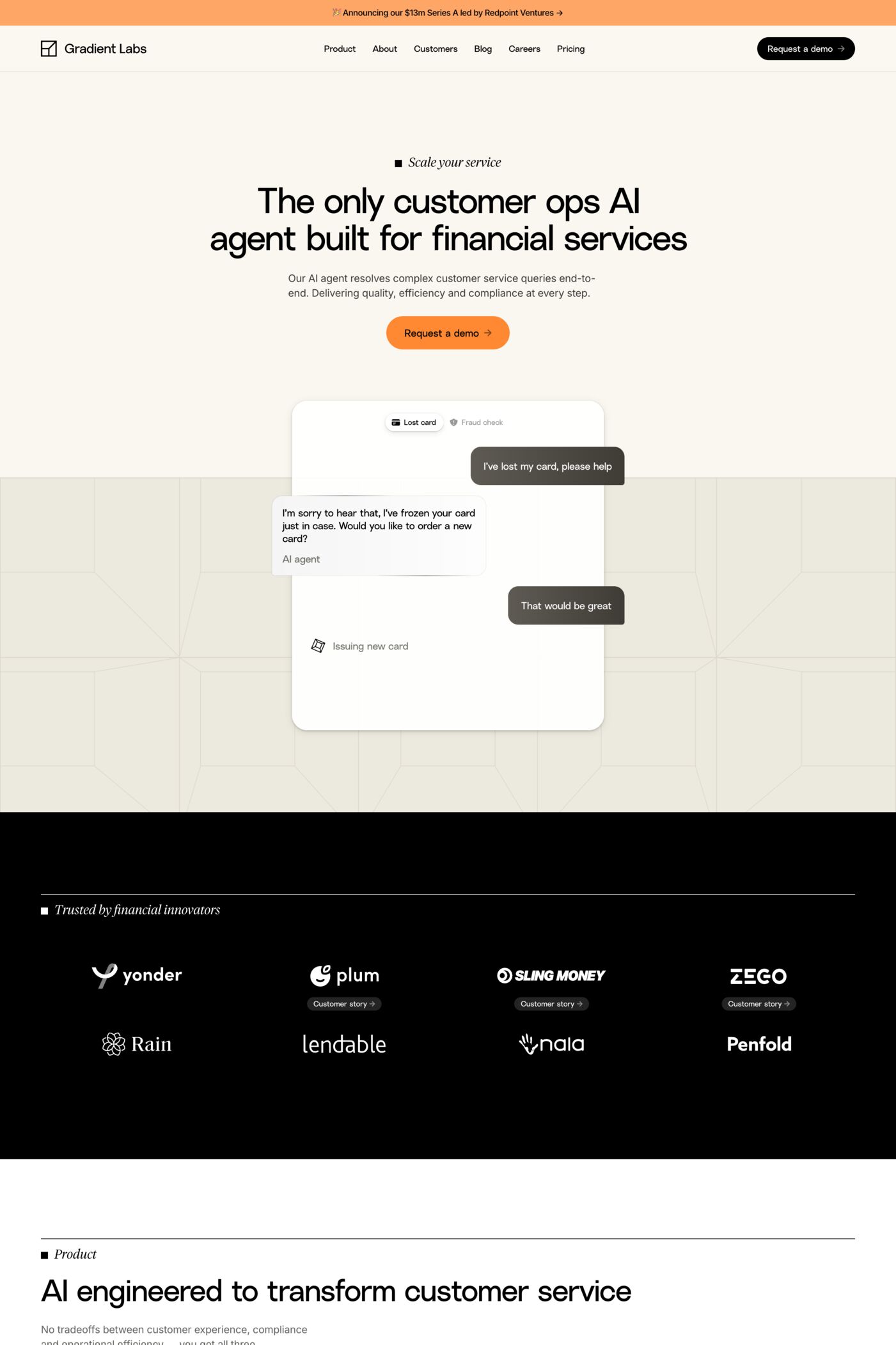
Linear Sans is a sans-serif typeface from Gradient®.
Linear Sans is a neo-grotesque sans serif that tackles the 1950’s Swiss design style and comes in a workhorse pack of 12 styles and 6 weights. Linear Sans is built upon rigid geometric principles using high contrast and tight apertures but with a touch of warmth in its laid back finish.